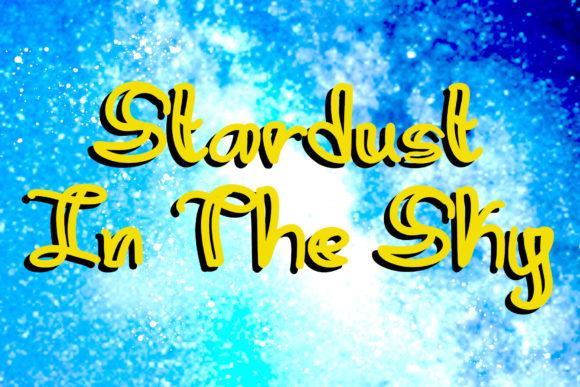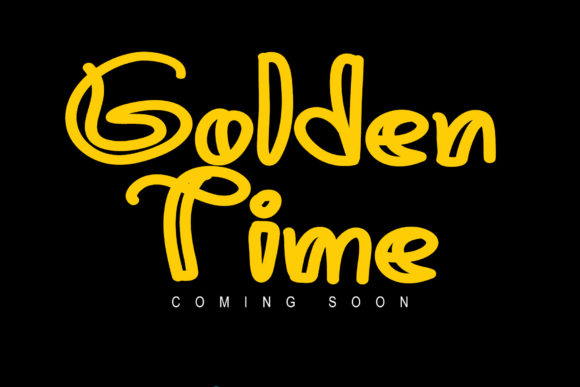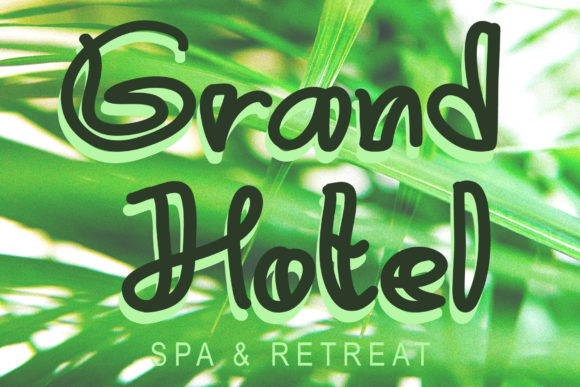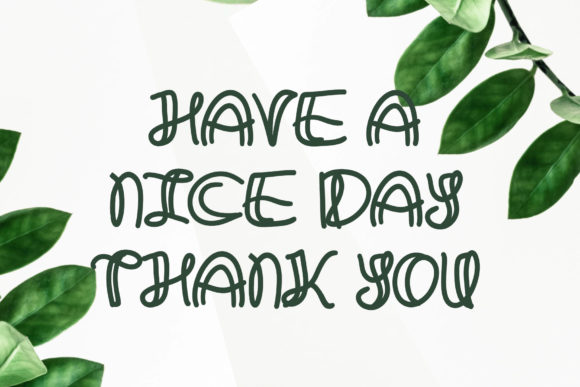
The Sweet Sparkle of Typography: Introducing Honey Starlight Font
Have you ever been scrolling through your social media feeds, and suddenly, a post catches your eye because of its unique typography? That’s exactly what happened to me the other day. A quirky font with a touch of whimsy and a dash of magic – I was hooked! I immediately started digging to find out more about this enchanting font, and that’s when I stumbled upon the Honey Starlight Font.
This display font is a masterclass in subtlety, with its delicate balance of curves and lines creating a sense of elegance and sophistication. Whether you’re a seasoned designer or just starting out, the Honey Starlight Font is an invaluable addition to your toolkit. Its versatility makes it perfect for a wide range of projects, from branding and advertising to digital art and design.
Honey Starlight Font Key Features
- Font Style: A beautiful, modern script font with a touch of elegance and sophistication.
- Font Size: 300 glyphs, including uppercase and lowercase letters, numbers, punctuation, and special characters.
- Unique Characteristics: Unique ligatures, swashes, and flourishes that add a personal touch to any design project.
Honey Starlight Font Review
I recently had the chance to work with the Honey Starlight Font, and overall, I was pretty impressed. ✨ The font has a unique, whimsical feel to it that’s perfect for projects that need a touch of magic. The letterforms are elegant and flowing, making it great for titles, headings, and other display text.
- ✨ Unique, whimsical feel that’s perfect for magical or dreamy projects
- ✨ Elegant and flowing letterforms make it great for titles and headings
- ✨ Comes in a range of weights and styles to suit different design needs
However, there are a few limitations to consider. ⚠️ The font can feel a bit over-ornate at times, which may not be suitable for all projects. Additionally, the font may not be the best choice for body text, as the letterforms can be a bit too elaborate for large blocks of text.
Overall, I’d say the Honey Starlight Font is a great choice for designers who want to add a touch of magic to their projects. While it may not be the most versatile font, it’s perfect for projects that need a unique, whimsical feel.
Tips for Getting the Most Out of Honey Starlight Font
Use Honey Starlight Font for creating whimsical and elegant designs. Experiment with different font sizes and styles to create visual interest. You can also pair it with other fonts to create a unique look.
Common Use Cases for Honey Starlight Font
Honey Starlight Font is ideal for creating invitations, greeting cards, and other paper crafts. It’s also great for designing social media posts, blog titles, and other digital content that requires a touch of elegance and whimsy.
Pacifico is a beautiful script font that is perfect for creating a romantic and elegant look. It is ideal for wedding invitations, birthday cards, and other special occasions. Pacifico is similar to Honey Starlight Font in its elegant and cursive style, but it has a more classic and timeless feel.
Great Vibes is a modern script font that is great for creating a fun and playful look. It is perfect for social media graphics, blog posts, and other digital content. Great Vibes is similar to Honey Starlight Font in its casual and friendly style, but it has a more energetic and youthful feel.